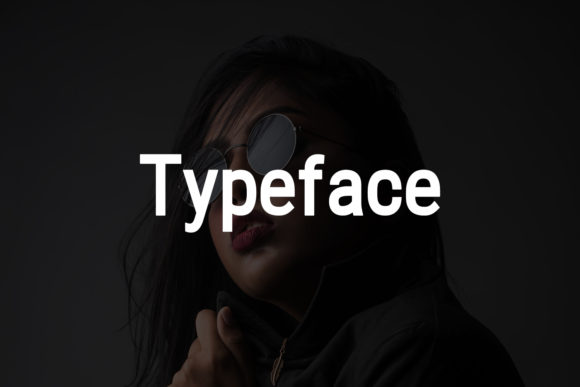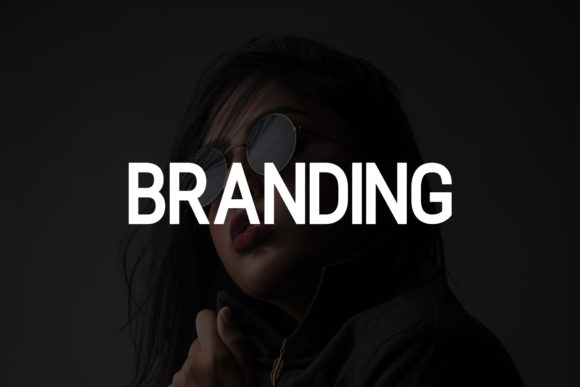
Introduction to Madox Font
Have you ever been in the midst of a creative project, pouring your heart and soul into a design, only to feel like it’s missing that final spark? You’ve tried every combination of colors, shapes, and typography, but something just doesn’t click. That’s where the Madox Font comes in – a bold and authentic display font that can breathe new life into your ideas.
As a valuable design resource, Madox Font offers a high-quality alternative to the usual suspects. With its unique character and transparent background, this font is the perfect addition to any creative project. Whether you’re working on a branding campaign, a marketing brochure, or a social media graphic, Madox Font is sure to make your design stand out from the crowd.
Key Features of Madox Font
- High-quality design resource ideal for creative projects, offering a modern and sleek aesthetic.
- Includes a range of glyphs and characters, making it suitable for a variety of creative projects, from logos to typography-based designs.
- Designed to be highly legible, with clean lines and a clear, easy-to-read structure, making it perfect for body text or headings.
Honest Review: Madox Font
As a designer, I’m always on the lookout for high-quality design resources to elevate my creative projects. Recently, I came across the Madox Font, and I’m excited to share my thoughts on it.
- ✨ Elegant and modern design aesthetic that’s perfect for contemporary projects
- ✨ Comprehensive font set with various weights and styles to suit different design needs
Overall, I’m impressed with the Madox Font’s design quality and versatility. While it has its limitations, it remains a valuable resource for designers working on creative projects. I’d definitely recommend it to anyone looking for a high-quality font to elevate their design work.
For optimal results, use Madox Font with a transparent background to create a high-quality design resource. This font is ideal for creative projects that require a unique and modern look.
Common Use Cases for Madox Font
Madox Font is suitable for a variety of applications, including logo design, branding, and marketing materials. Its high-quality design makes it an excellent choice for any creative project that requires a professional and modern look.